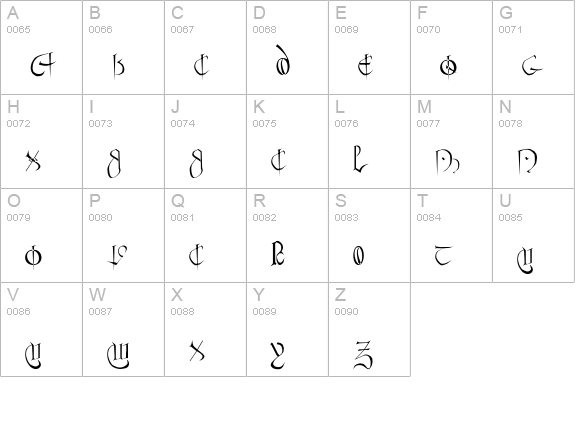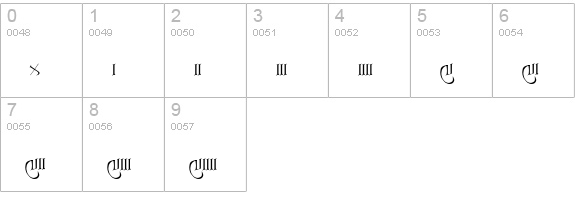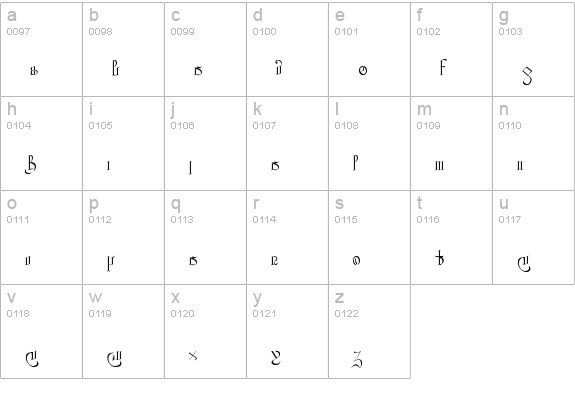
CourthandPlain Font Details
CourthandPlain is a versatile and elegant font that strikes the perfect balance between classic and modern styles. This font exudes sophistication and professionalism, making it ideal for a wide range of design projects. With its clean lines and timeless appeal, CourthandPlain is sure to add a touch of refinement to any text or design. The best part? CourthandPlain is available for free download at FontsMarket.com. This means you can easily access and use this beautiful font for all your personal and commercial projects without any cost. Don't miss out on the opportunity to enhance your designs with the timeless beauty of CourthandPlain font. Download it today and elevate your typography game to new heights.